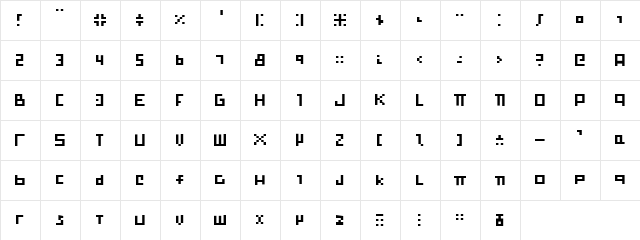
Pixelboy Regular
Design Context for Pixelboy Typeface
Pixelboy celebrates the constraints of early digital type, turning pixel geometry into a distinctive and immediately recognisable style.
Well-suited to indie game interfaces, retro computing aesthetics, and pixel art-adjacent design work.
Pro Tip: Use Pixelboy at sizes that align with its pixel grid for the sharpest rendering — scaling to non-integer multiples can introduce unwanted blur.